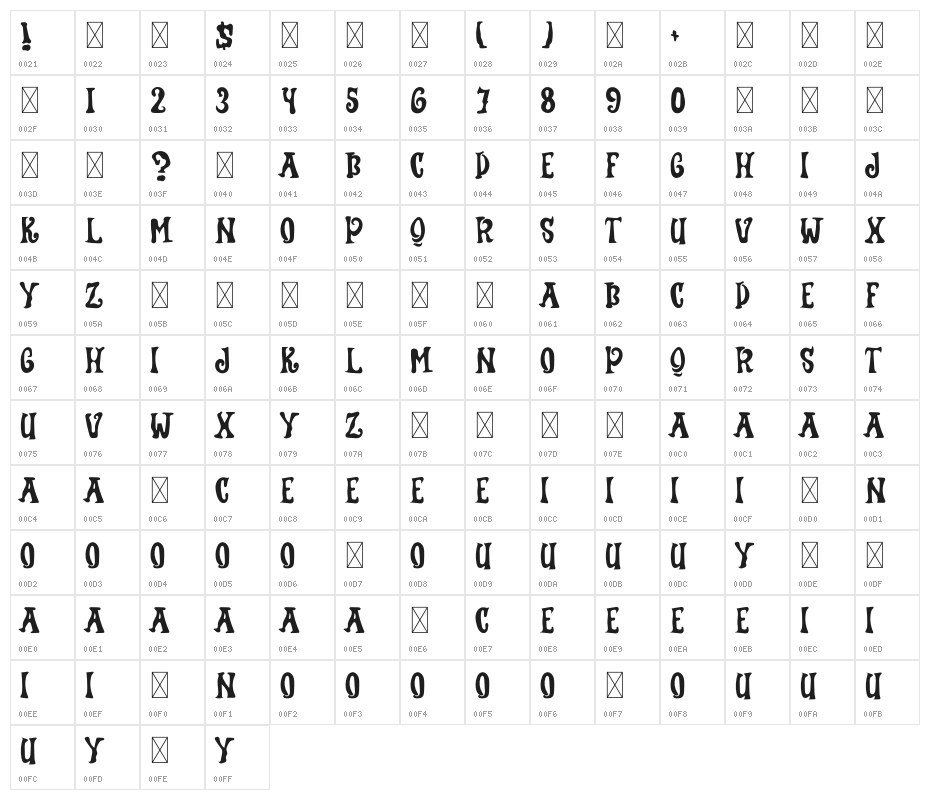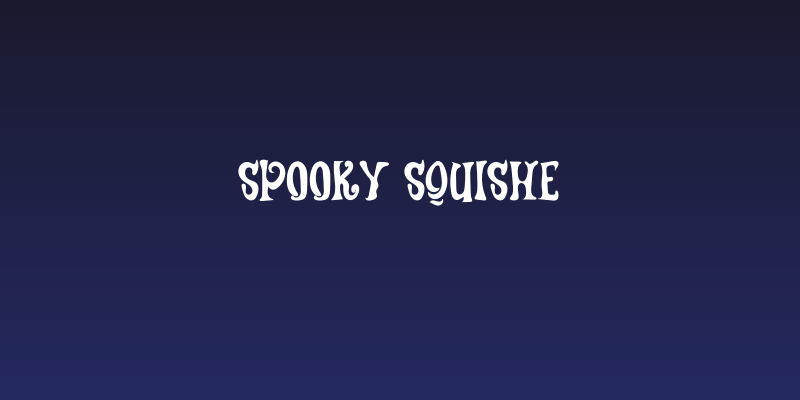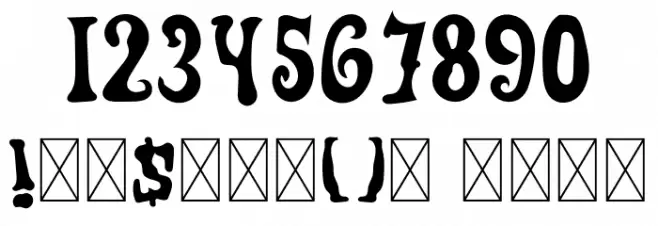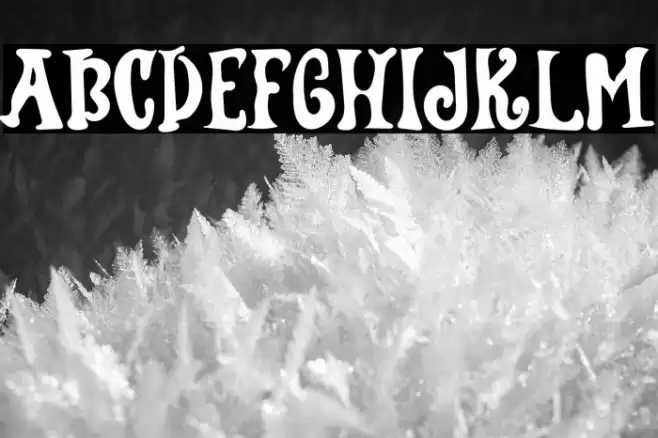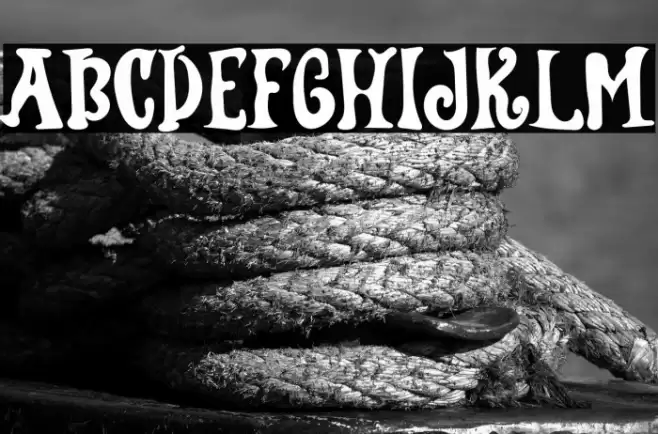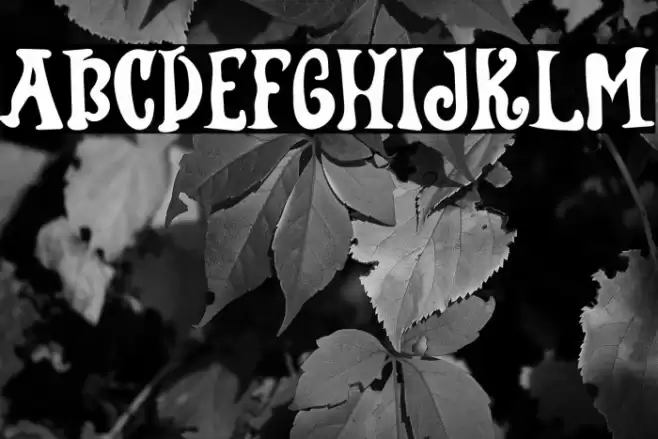
Spooky Squishe Font
Spooky Squishe Description
This font exudes a playful yet eerie charm, perfect for capturing attention with its whimsical and slightly distorted letterforms. The characters are bold and feature unique, exaggerated curves and twists that give them a spooky, cartoonish appearance. The uppercase and lowercase letters maintain a consistent style, with the numbers and special characters following suit. The font's quirky design makes it ideal for Halloween-themed projects or any creative endeavor that requires a touch of the unusual.
| Proposed Projects | Ideal for Halloween invitations, themed posters, children's books, and playful branding. |